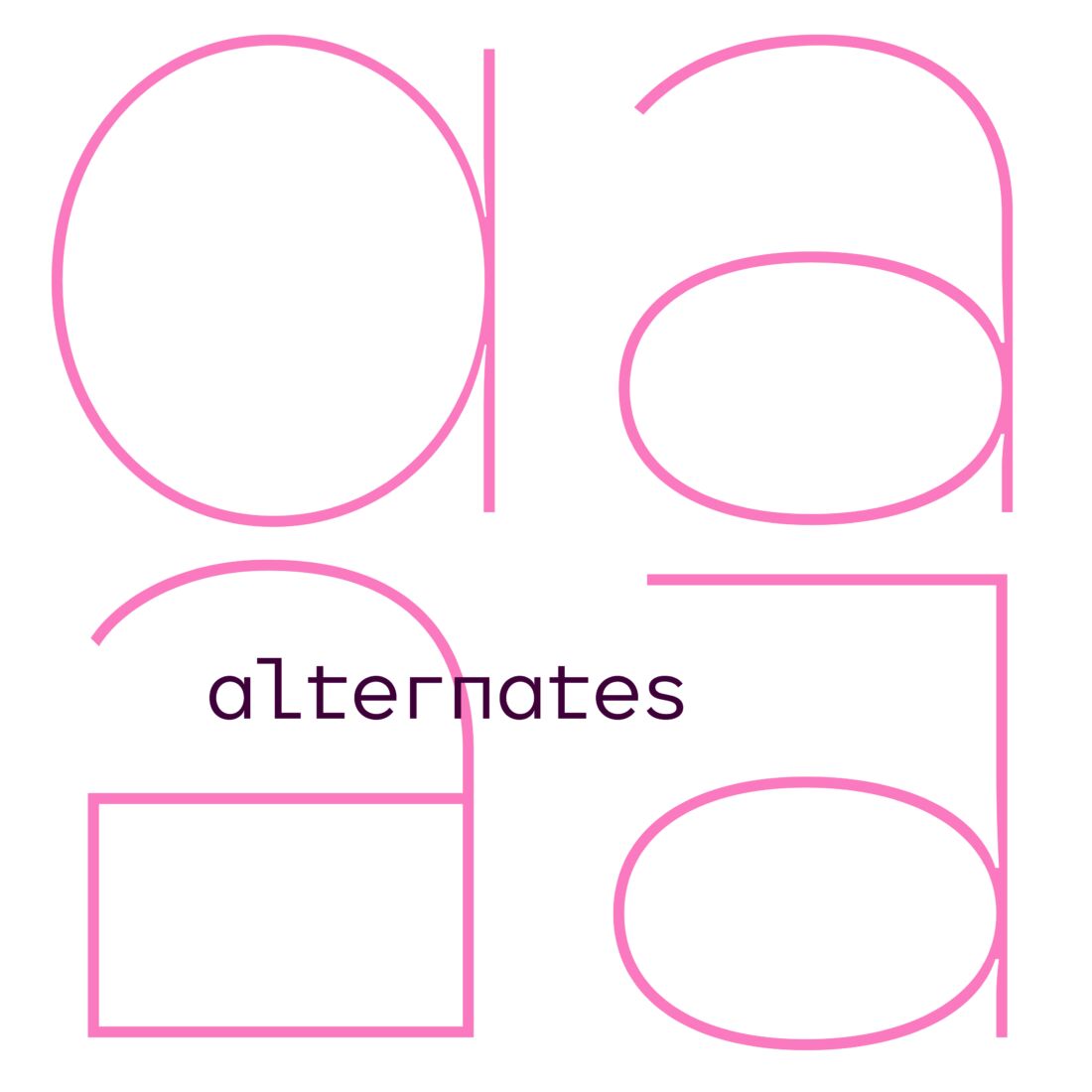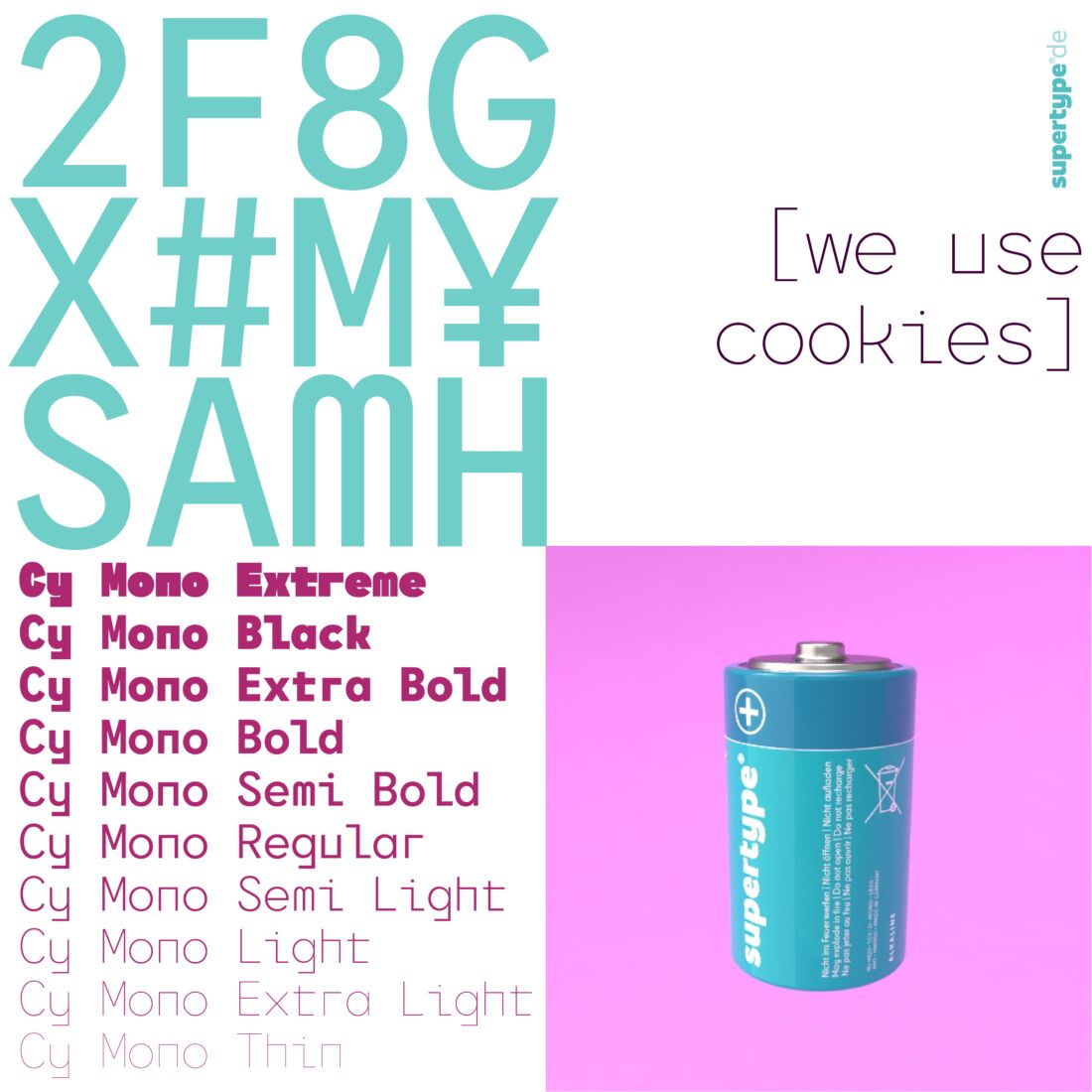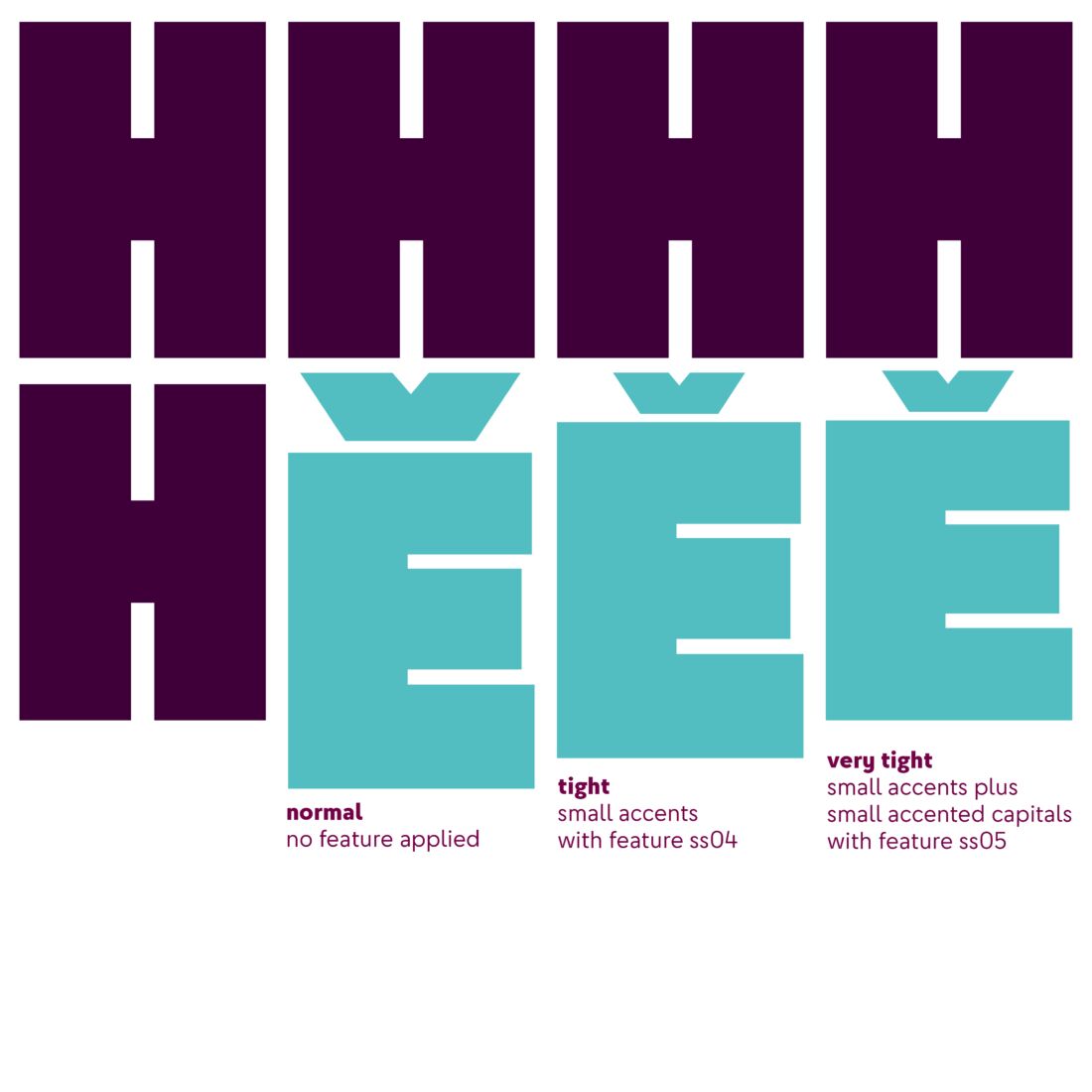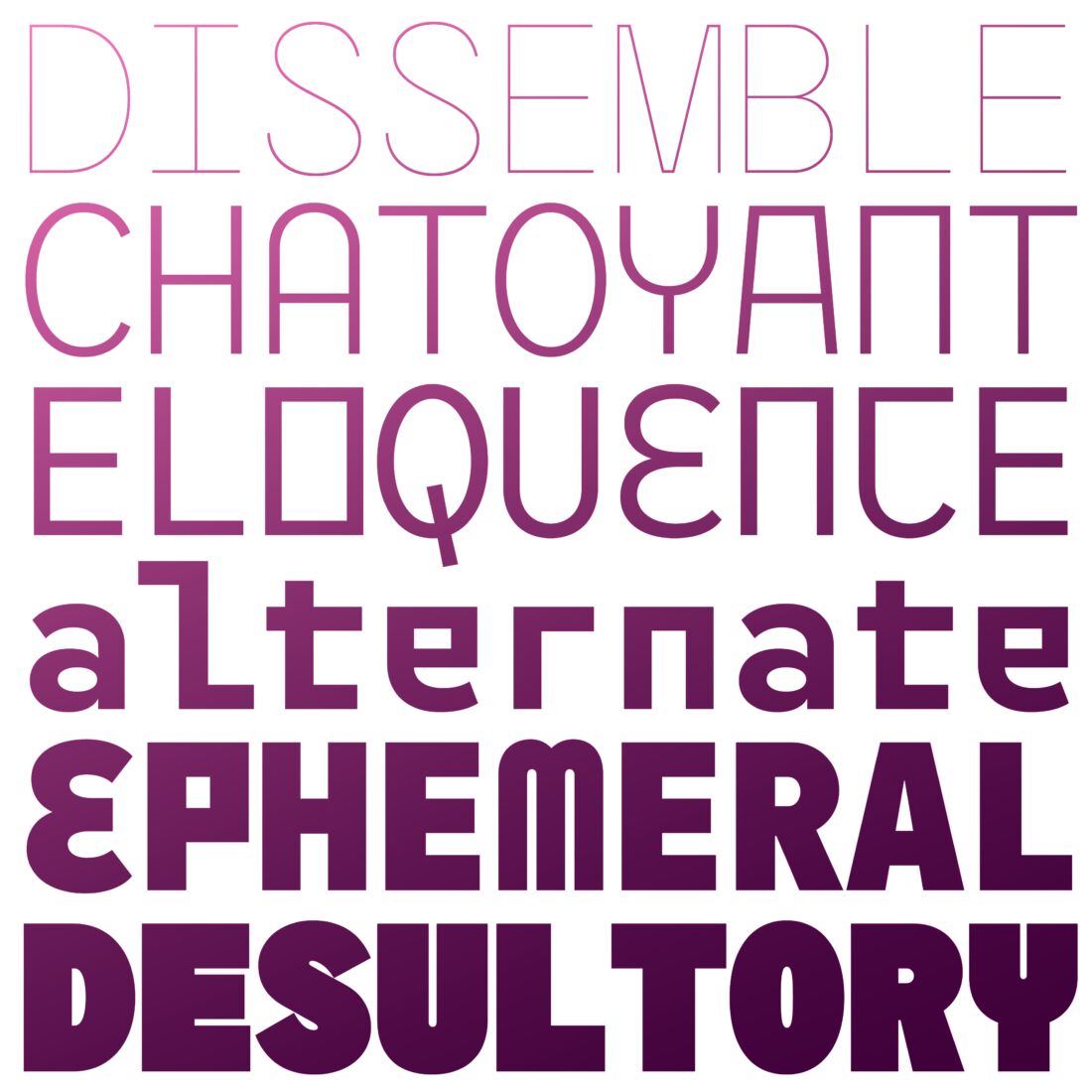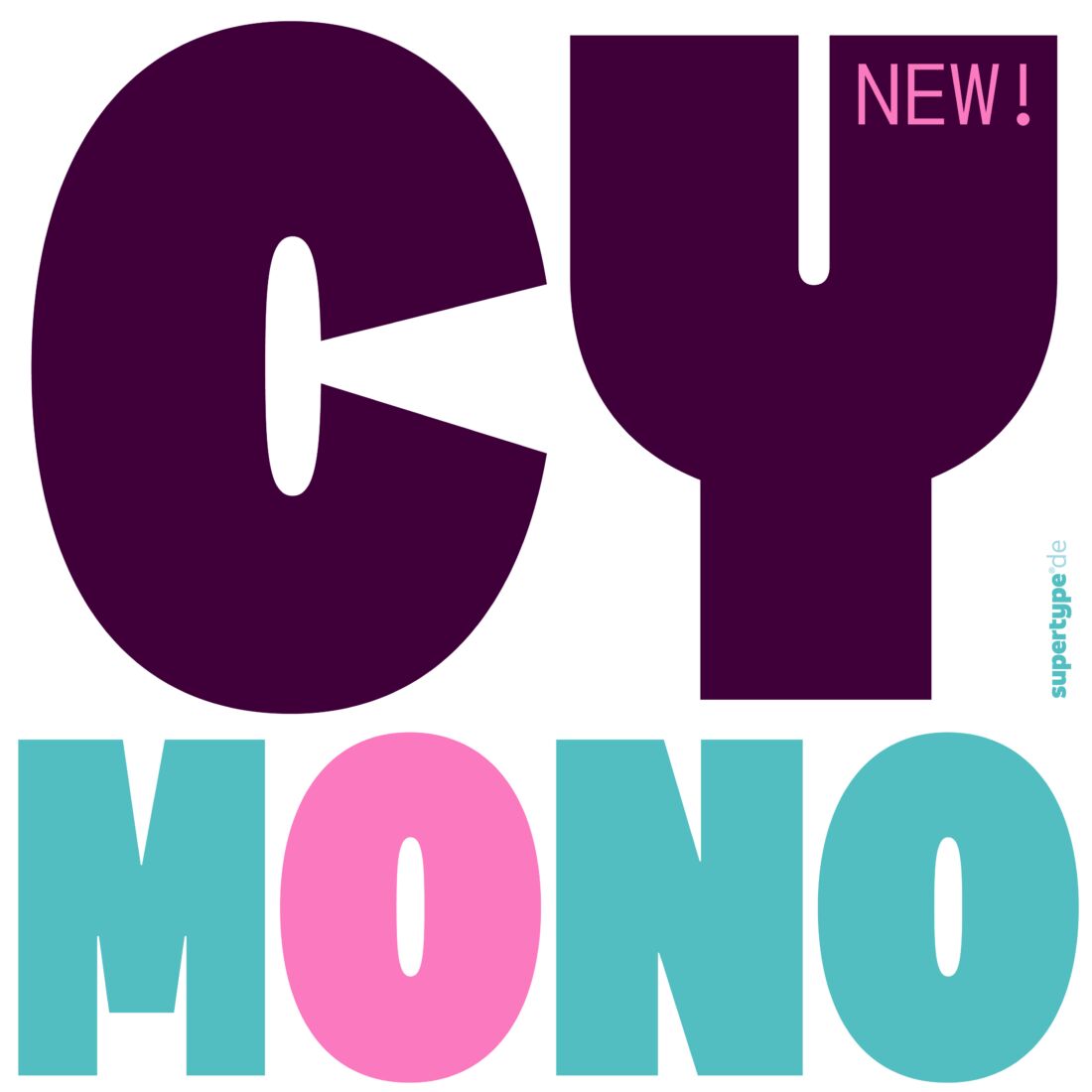
Cy Mono
Mono-spaced Geometry
Cy Mono is the mono-spaced complement to Cy and Cy Text. Mono-spaced fonts have their own special charm anyway, but take a look at Cy Mono Extreme, it's perfect for setting powerful headlines, or together with Cy Mono Thin ornamental flat designs and everything that needs a punch.
Designer
Jürgen Huber